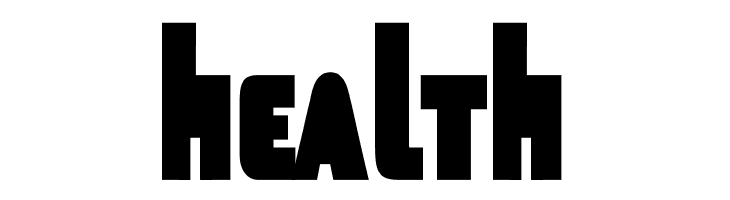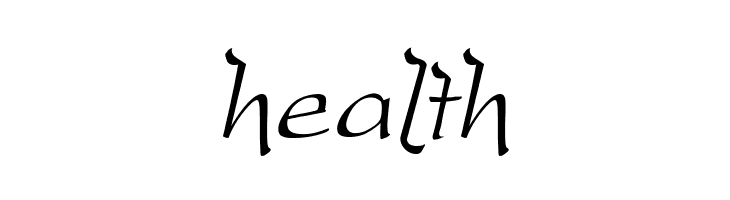
Caviar Dreams Font
Font by Lauren Thompson - www.nymfont.com
A modern, geometric sans-serif font with clean lines and balanced spacing.
Billo Dream Font
Font by www.fontalicious.com
A bold, playful font with a double-outline and cartoonish style.
Caviar Dreams Bold Font
Font by Lauren Thompson - www.nymfont.com
A bold, modern sans-serif font with medium contrast and geometric shapes.
Dreamwalker Font
A bold, distressed font with a vintage, rugged appearance.
Americana Dreams Font
A bold, angular font with a modern, futuristic style.
Dreamspeak Font
Font by www.varian.net
A modern, rounded sans-serif font with a clean and approachable design.
Dream Orphans Font
A modern, elegant font with tall, slightly condensed uppercase letters and unique lowercase curves.
Dreamspeak Bold Font
Font by www.varian.net
A bold, rounded sans-serif font with a modern and friendly appearance.
NEOTERIC Bold Font
Aivos Dreams
A modern, geometric font with a clean and balanced design.
PROMISES BROKEN DREAM Font
A bold, distressed font with a grunge, weathered appearance.
Dreamed About You Font
ANDROMEDA20 Font
Font by
danny91194
A bold, geometric font with a modern and clean aesthetic.
DreamerOne Font
Font by Varian`s Dreamfonts
A playful and whimsical font with flowing, irregular strokes and dynamic characters.
DreamOrphans-Regular Font
Font by www.typodermicfonts.com - Ray Larabie
A modern, high-contrast font with elegant, slender characters.
American Dream Font
A bold, decorative font with stars and stripes for a patriotic theme.
DreamerOne Bold Font
Font by Varian`s Dreamfonts
A playful, handwritten-style font with bold, dynamic strokes.
Robot Dreamer Font
A futuristic, geometric font with clean lines and squared edges.
Circo Font
Aivos Dreams
A modern, geometric font with clean lines and a minimalist style.
Beauty Dream Font
An elegant, flowing script font with a handwritten style.
dream Font